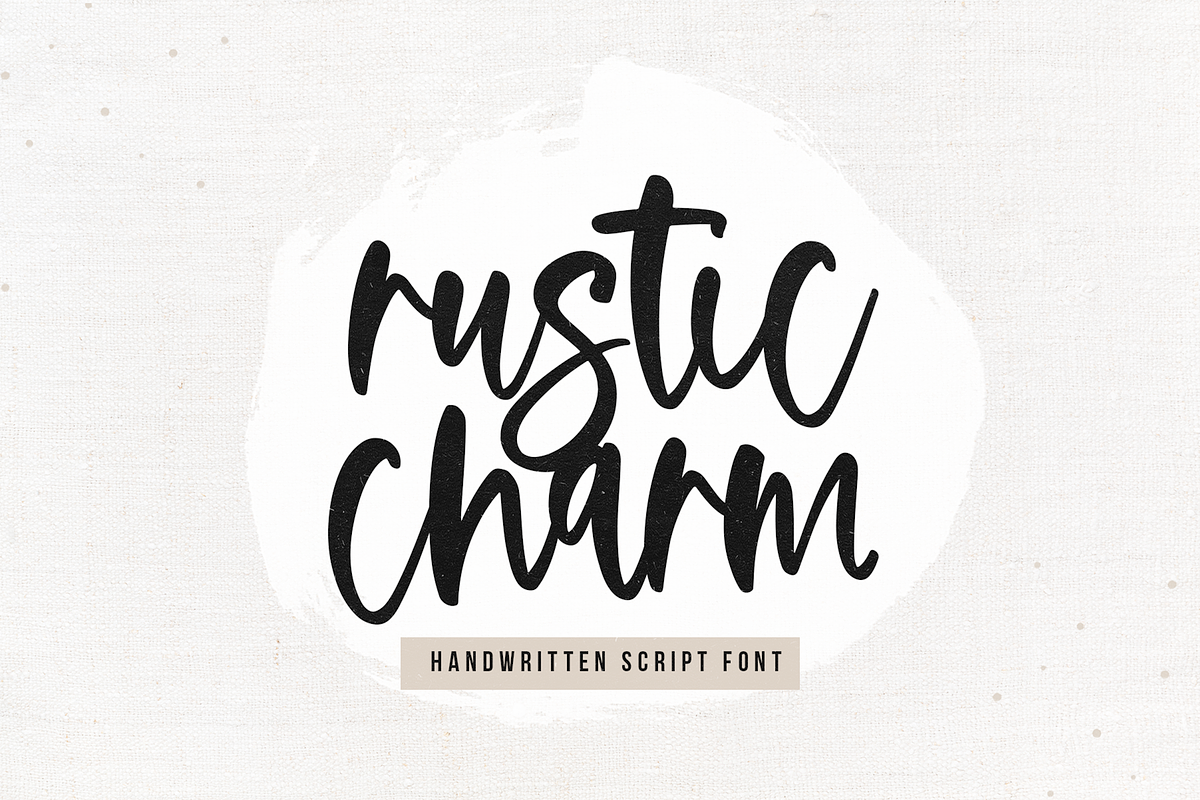
Rustic Charm | Farmhouse Font Free Download
Please note, you must purchase this font for commercial use. However, you can easily download Rustic Charm | Farmhouse Font Free Download for personal use and testing purposes. Rustic Charm | Farmhouse Font is a warm and inviting typeface inspired by country living and rustic aesthetics. Perfect for creating cozy branding, farmhouse-style designs, invitations, and home décor projects, this font adds a touch of charm and authenticity. With its handcrafted feel and vintage appeal, Rustic Charm | Farmhouse Font Free Download works wonderfully for designs that aim to evoke a sense of simplicity and warmth. Whether you're designing for a boutique, a cozy café, or a rustic wedding invitation, this font will enhance your project with its down-to-earth and friendly vibe. Download Rustic Charm | Farmhouse Font Free Download today and explore its potential before opting for a commercial license.